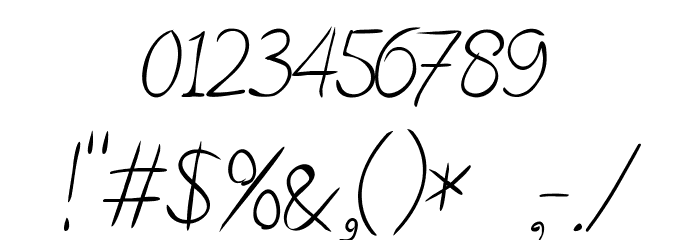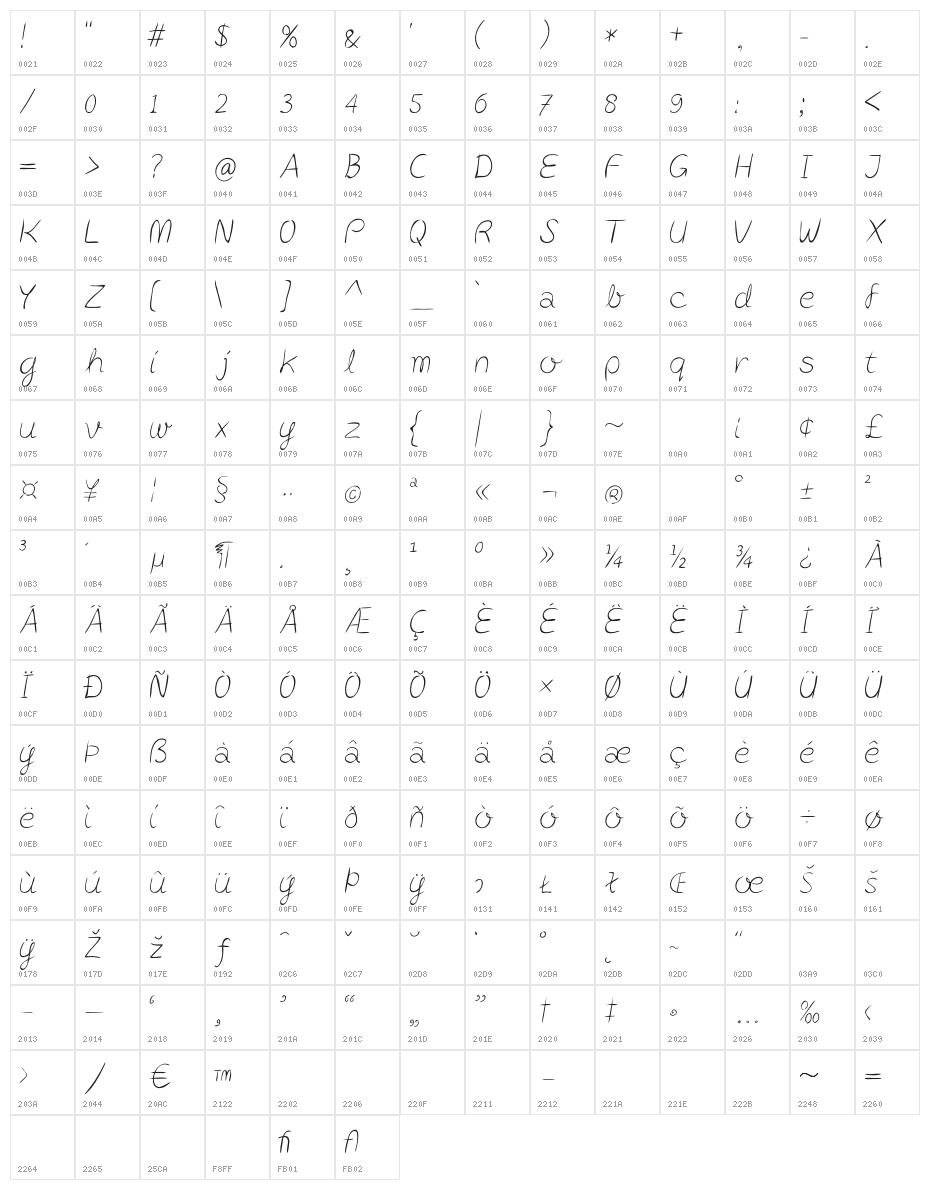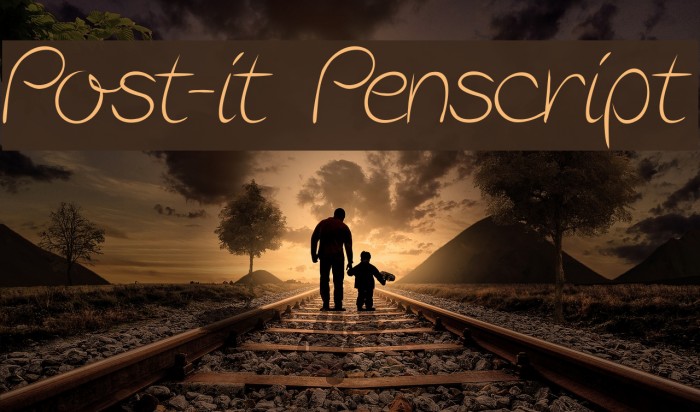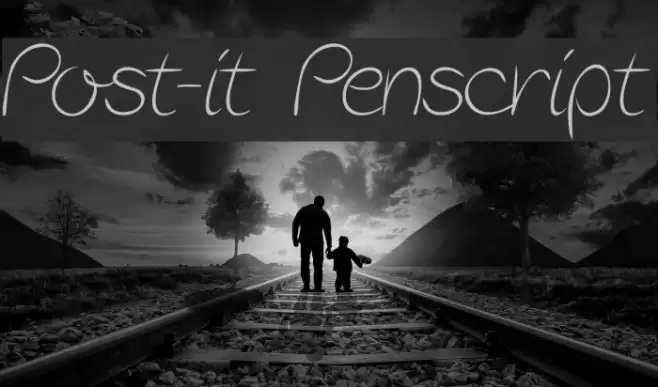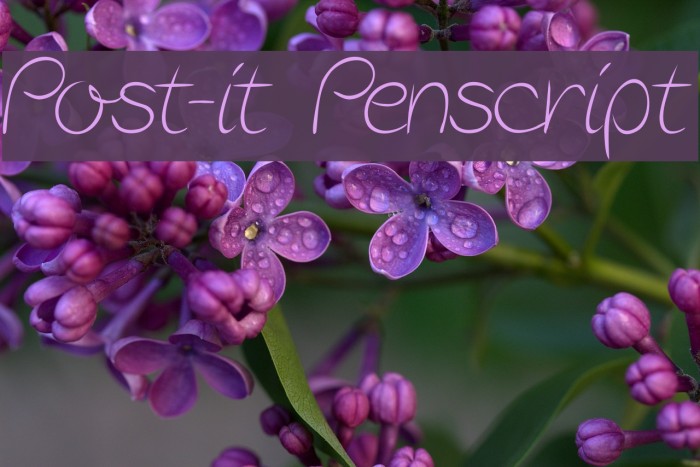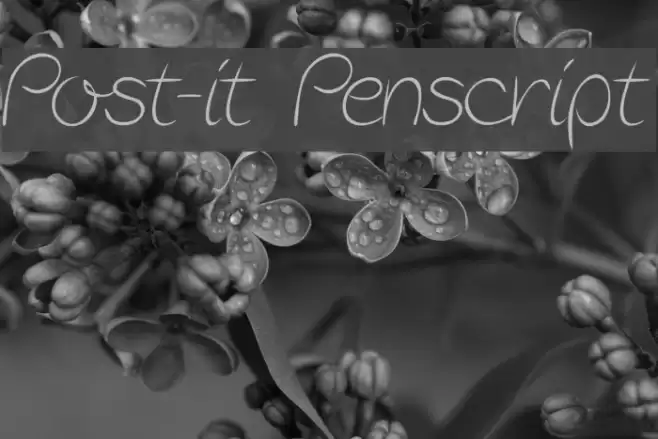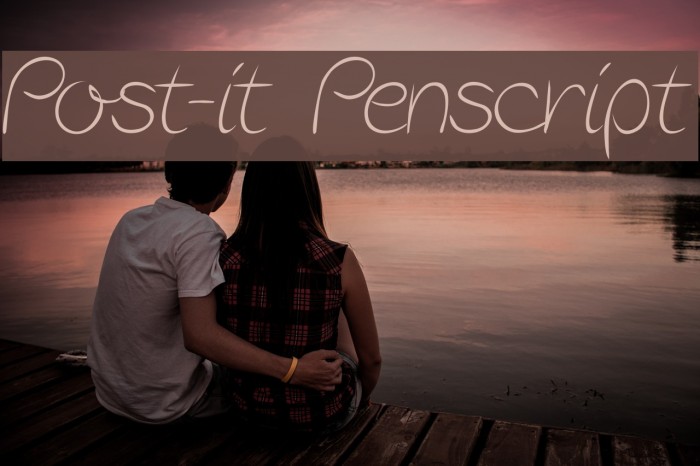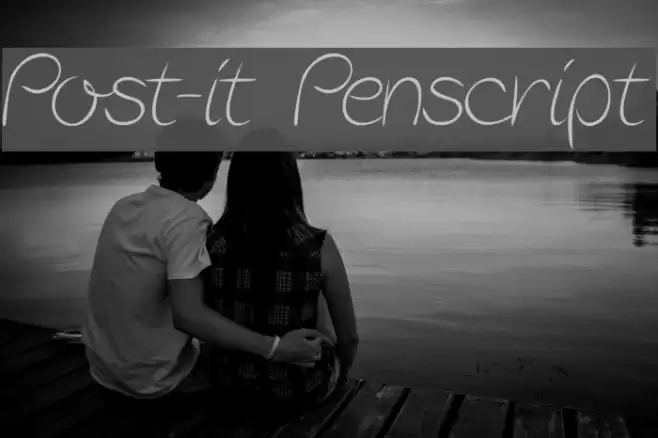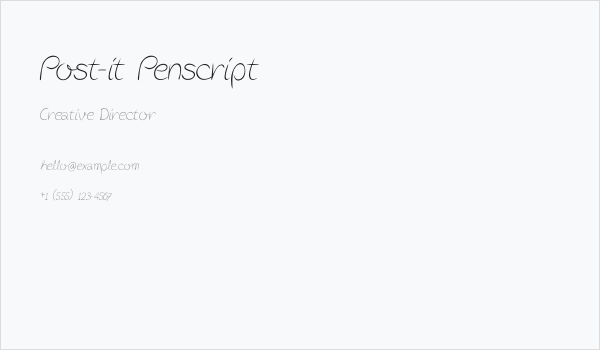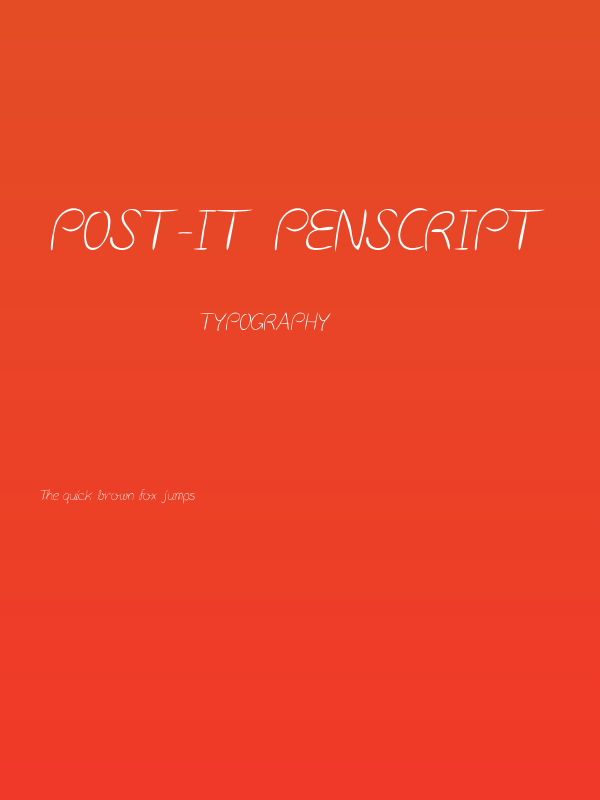
Post-it Penscript Font
Post-it Penscript Description
This font features a fluid, handwritten style that mimics the look of penmanship with a modern twist. The letters are elegantly curved with a consistent stroke width, giving it a smooth and flowing appearance. Uppercase letters maintain a sense of formality while the lowercase letters exhibit a casual, approachable feel. The numerals and special characters are crafted with the same attention to detail, ensuring a cohesive look across all characters. The overall design is both stylish and readable, making it suitable for a variety of applications.
| Use Case | Logos, Invitations, Personal notes |
| Proposed Projects | Ideal for personal notes, invitations, greeting cards, and branding projects that require a personal touch. |